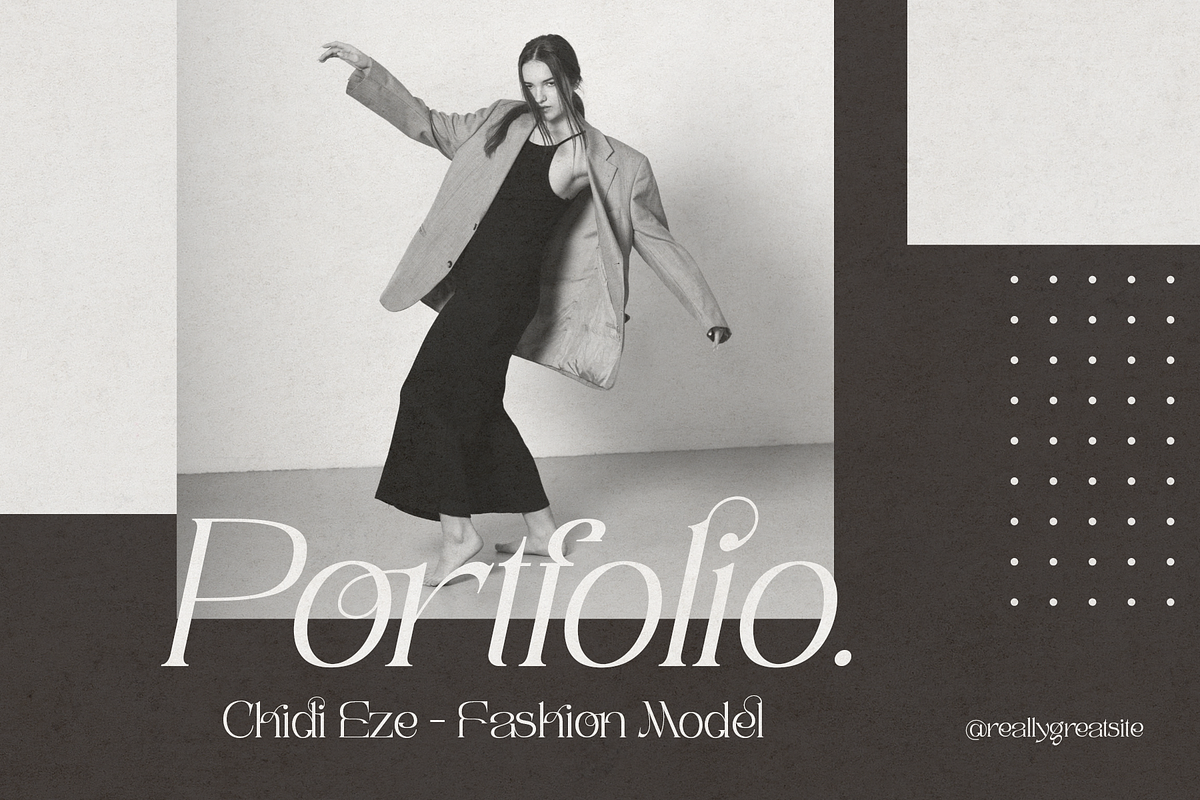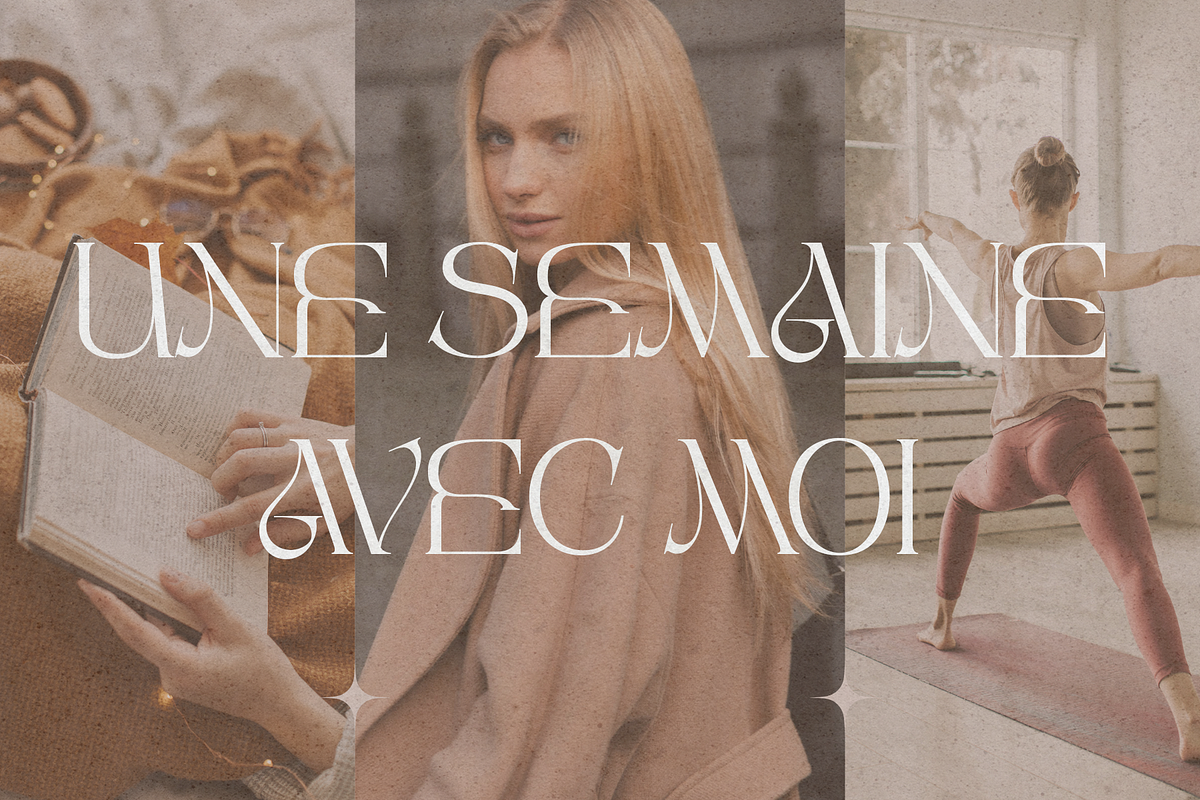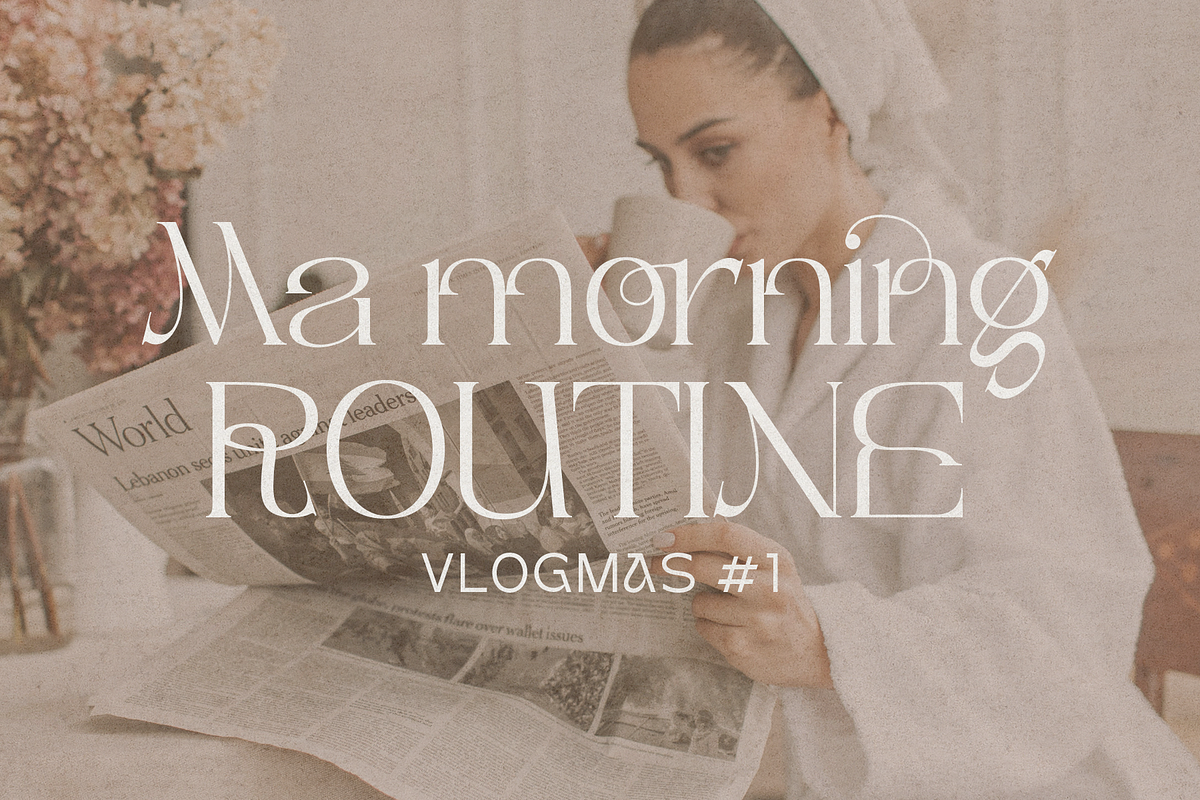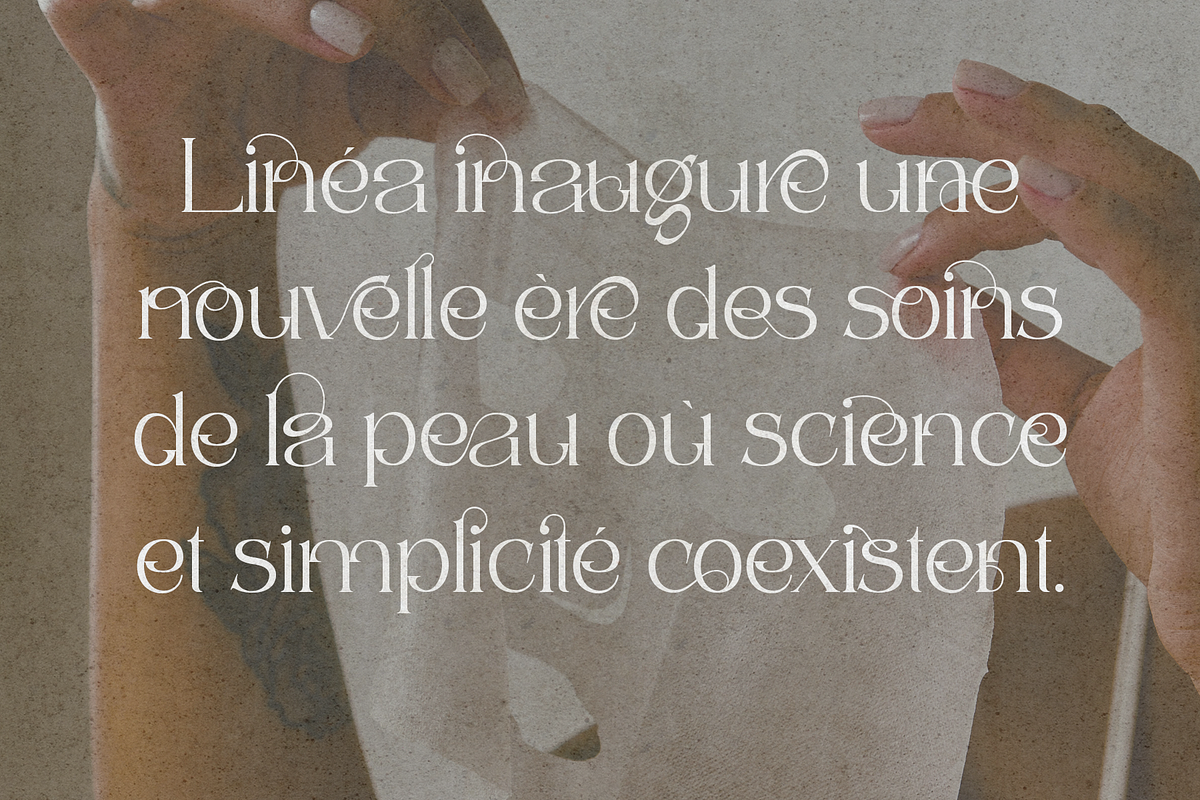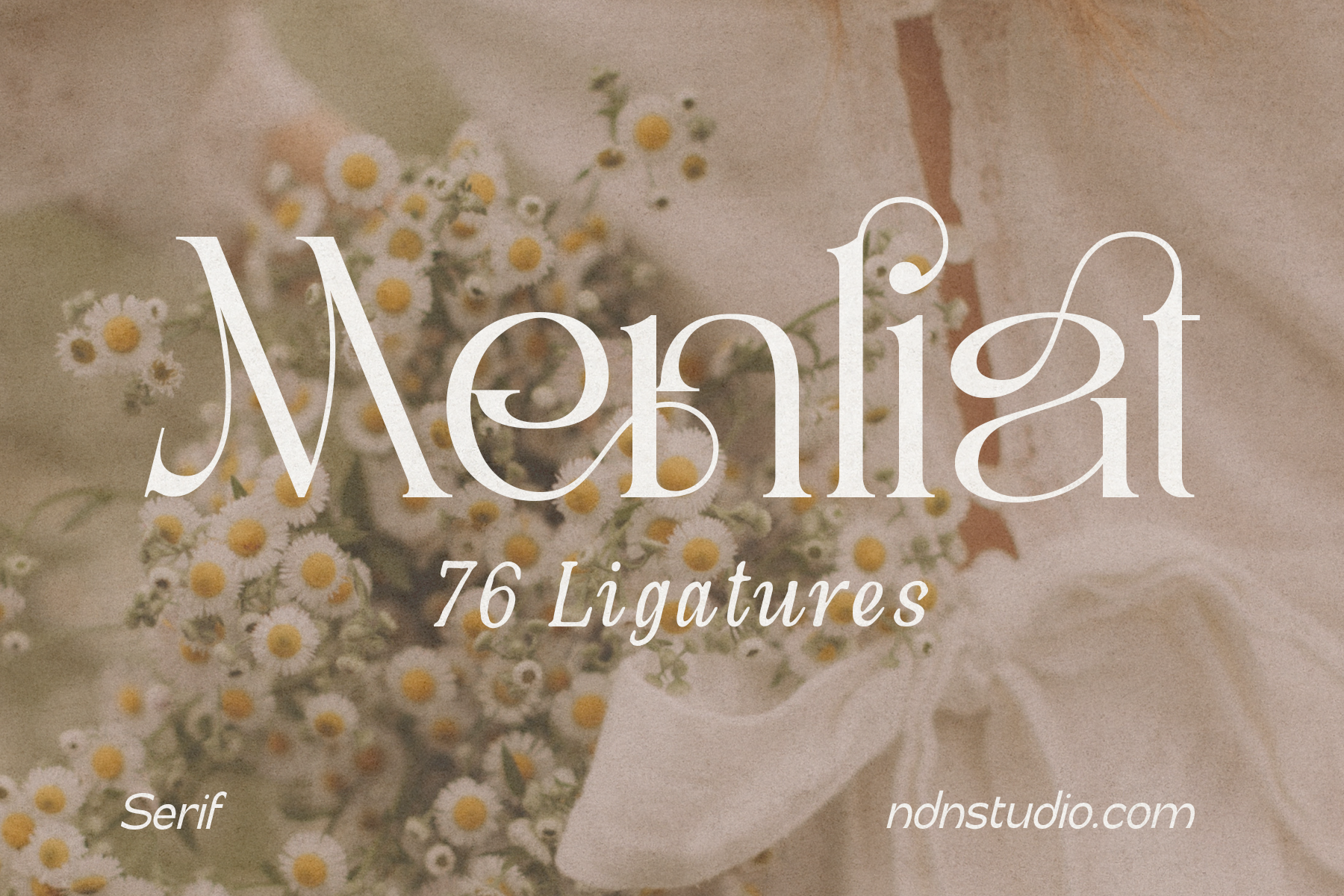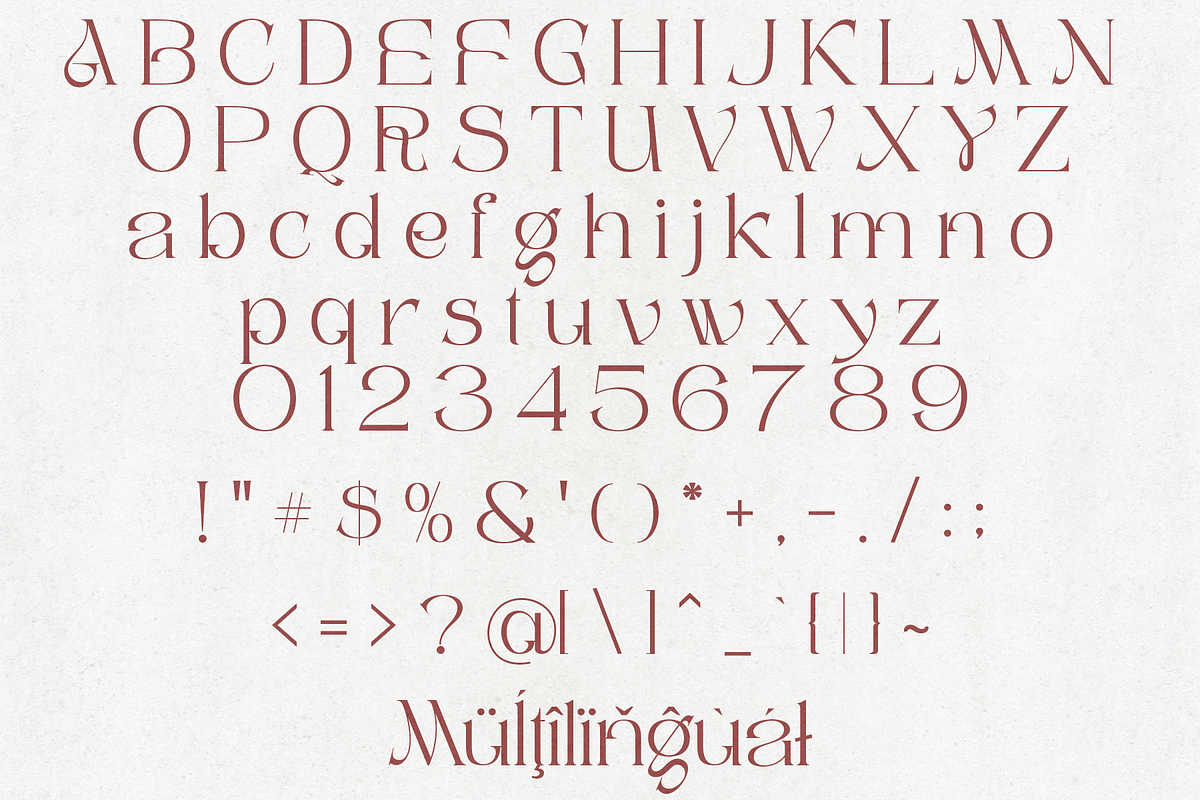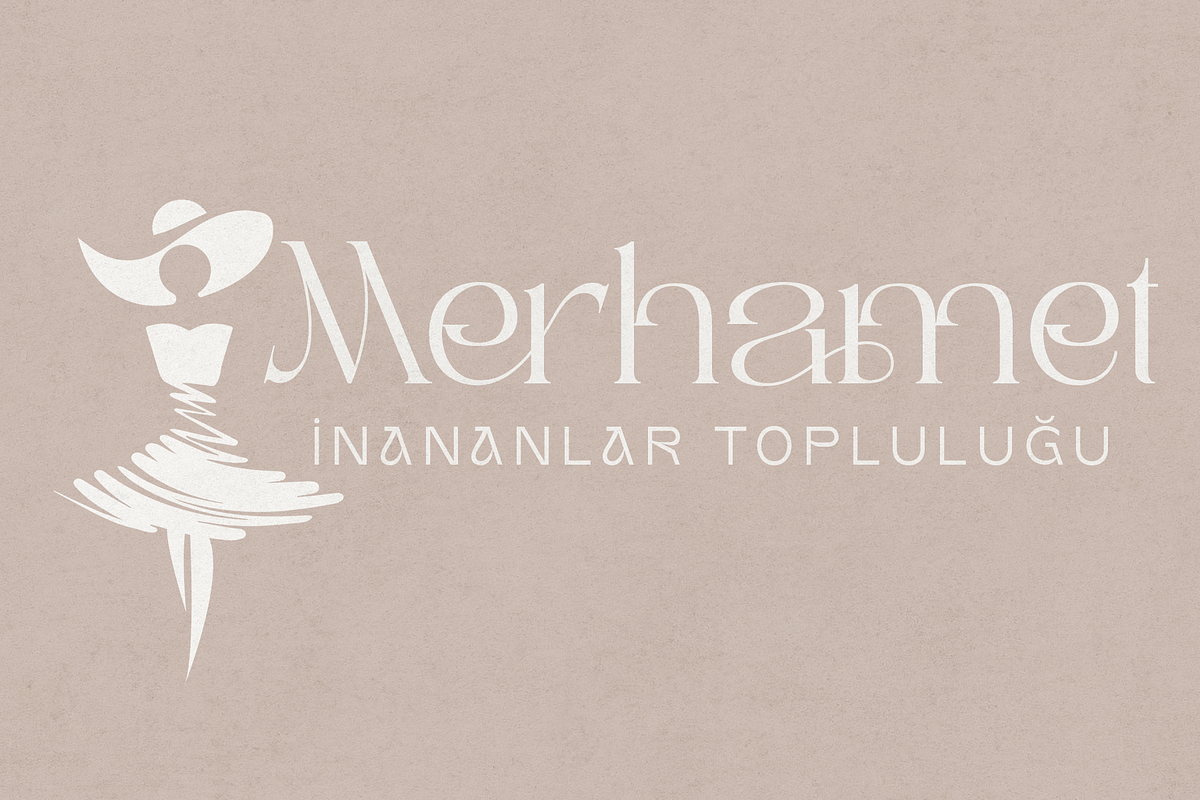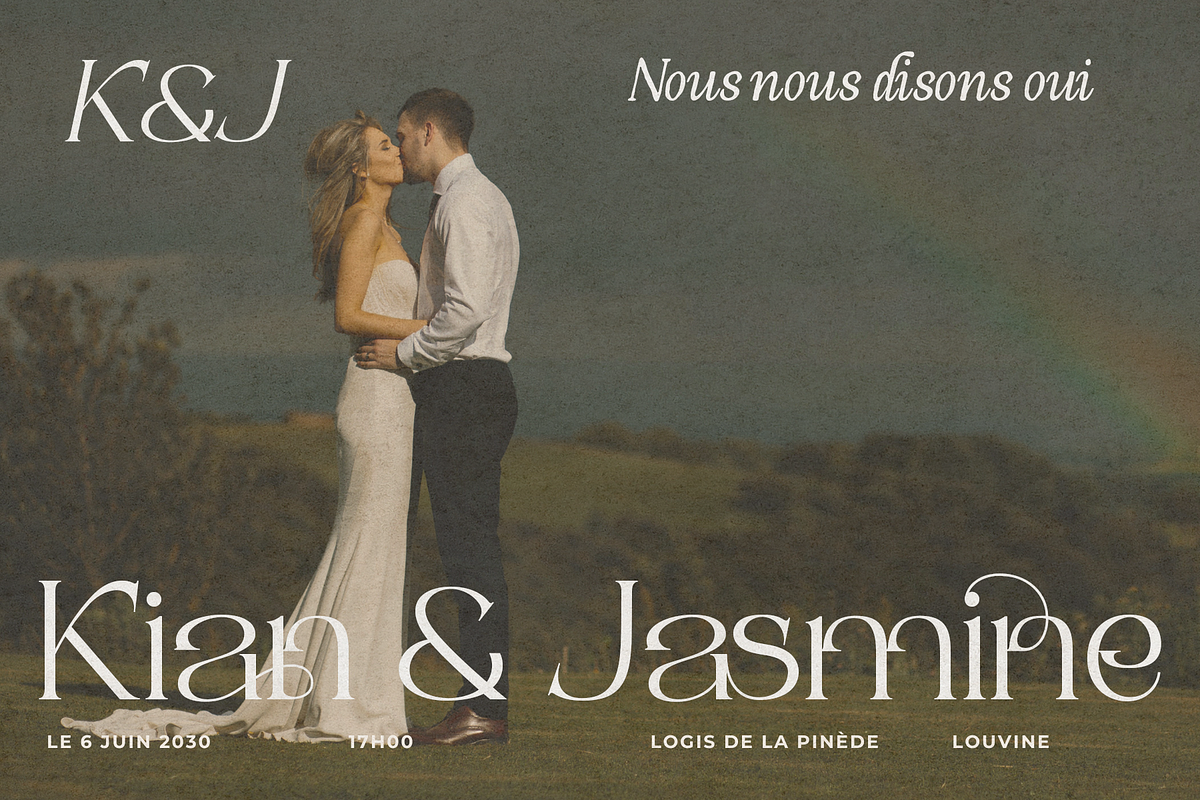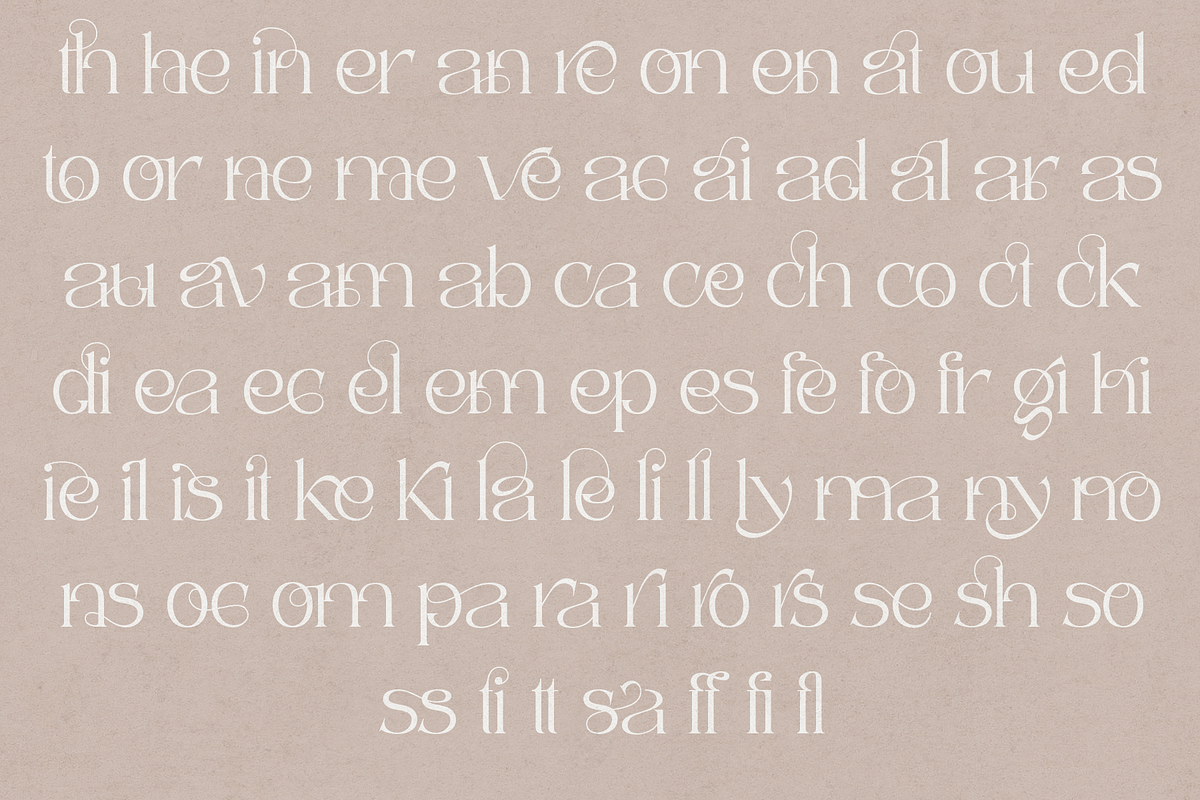
Menliat – Serif Font
Menliat is an elegant serif typeface that blends timeless sophistication with graceful artistic details. Featuring 76 beautifully crafted ligatures, it creates a refined and seamless reading experience while adding a unique personality to every word.
With its high-contrast strokes, delicate curves, and stylish alternates, Menliat is perfect for luxury branding, wedding invitations, fashion editorials, beauty packaging, logos, social media, magazines, and premium product designs. Whether you’re creating a romantic identity or a modern luxury aesthetic, Menliat delivers elegance with every letter.
– Character set A-Z
– Uppercase & Lowercase
– Numerals & Punctuation
– Accented Characters (West Europe)